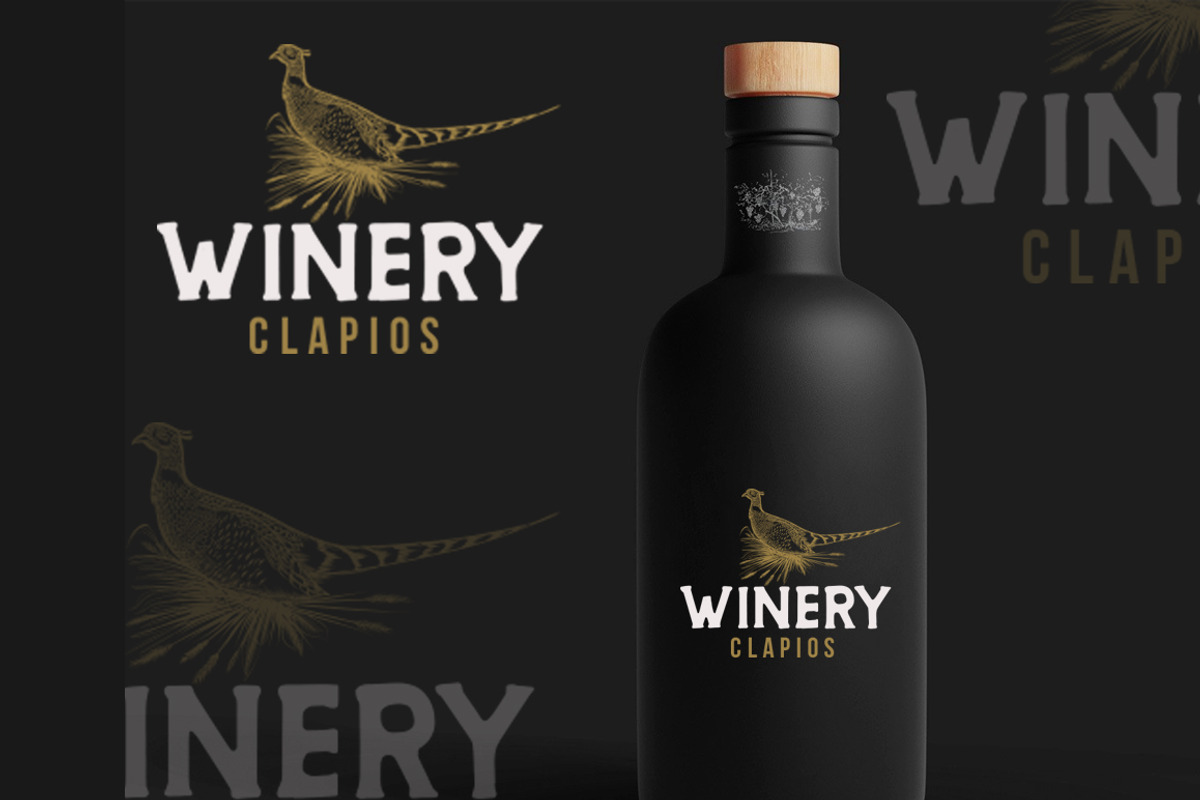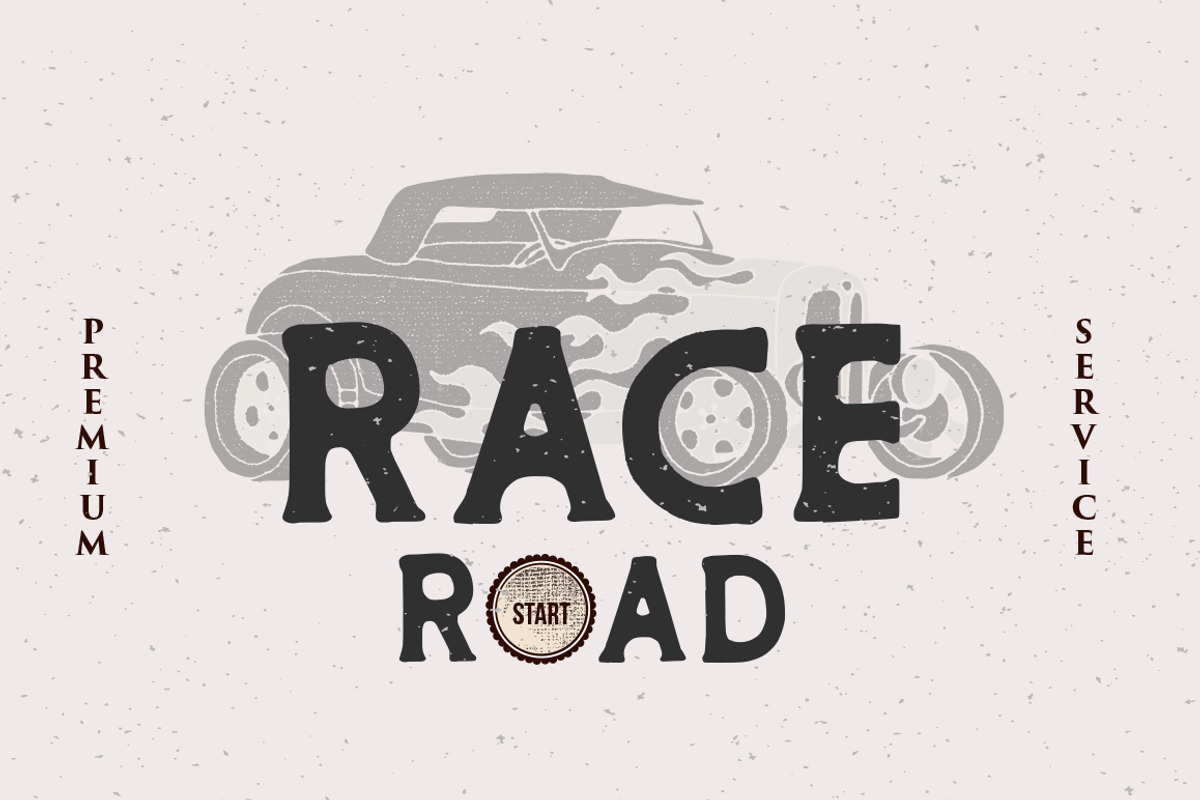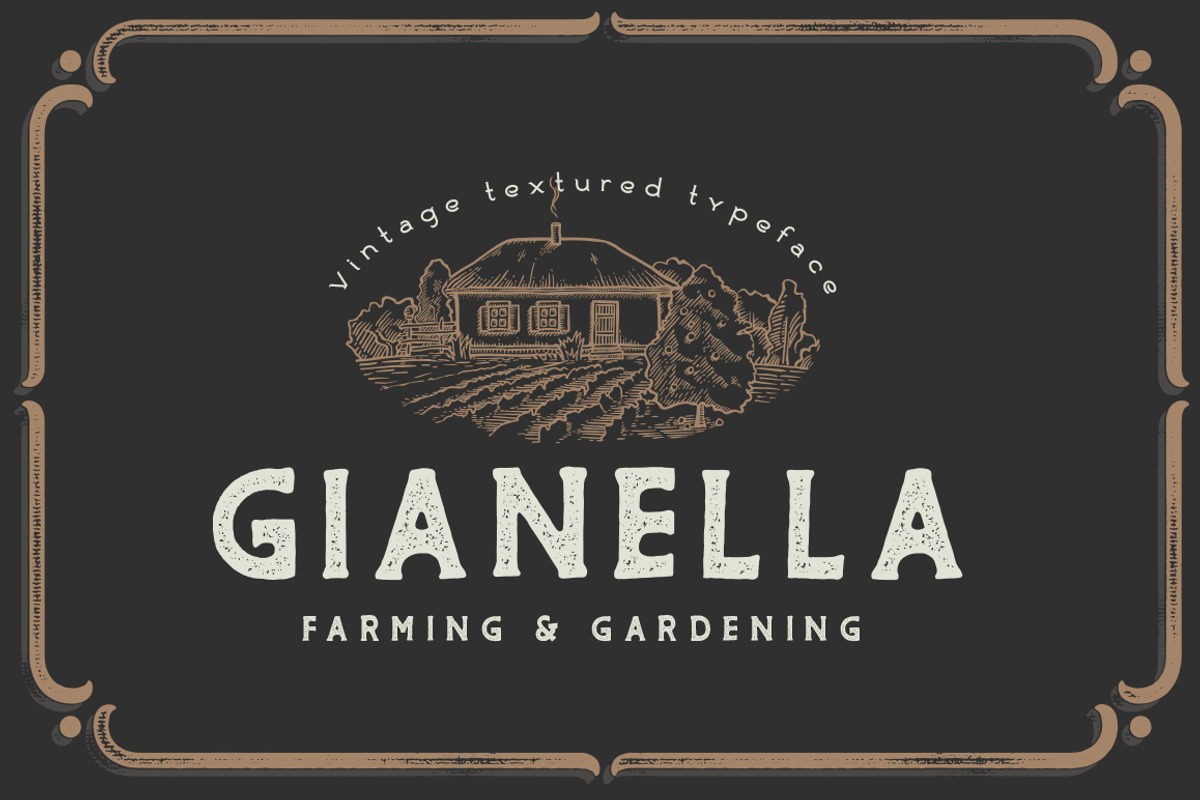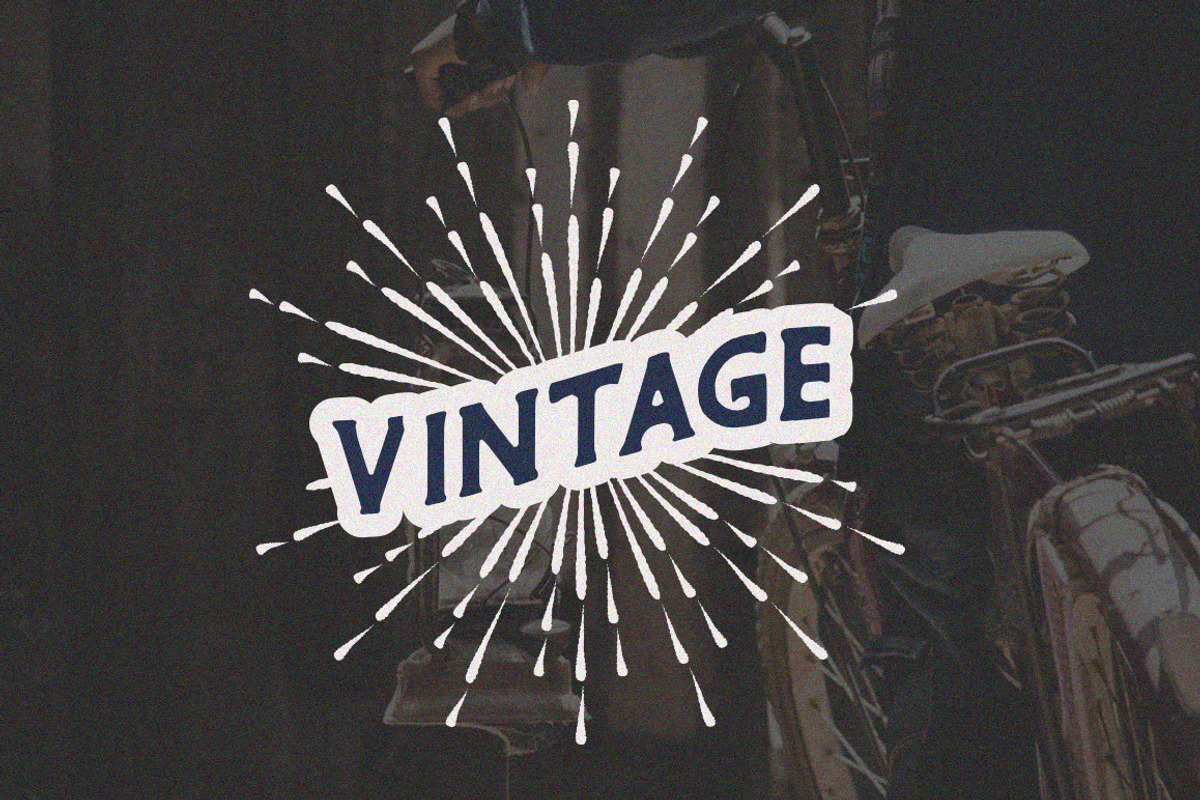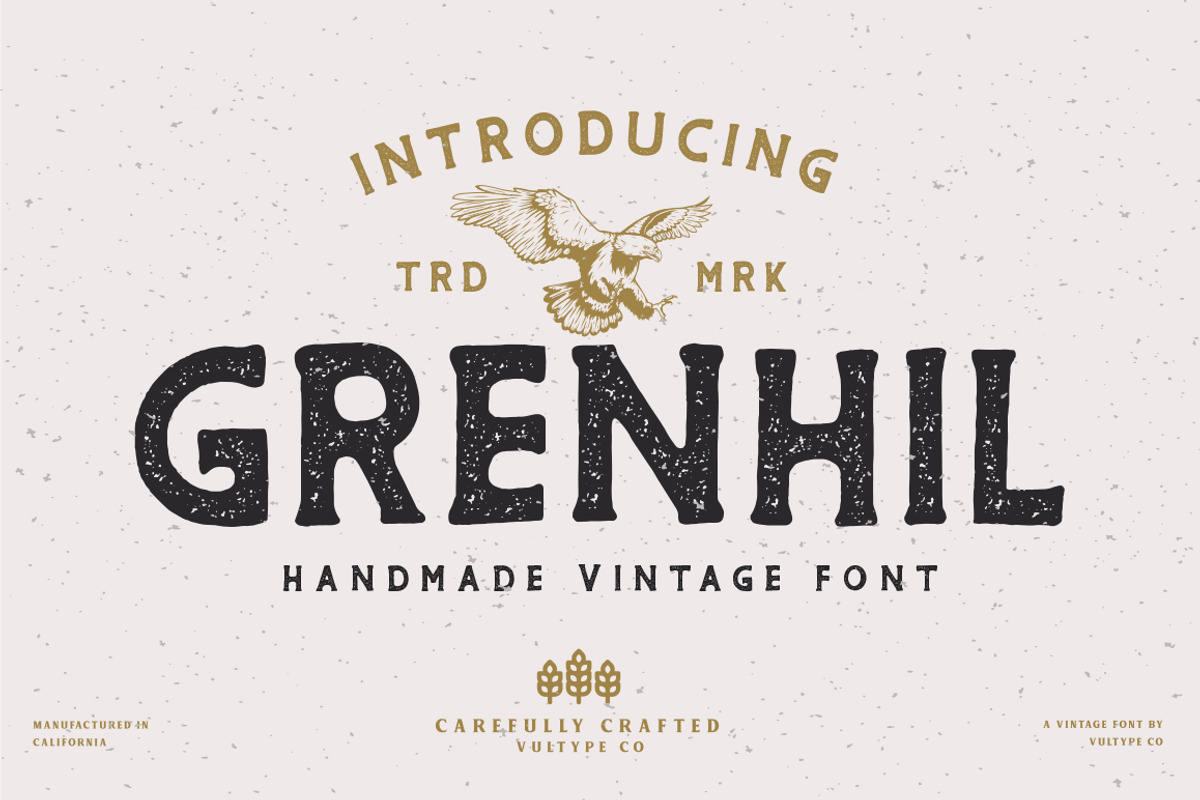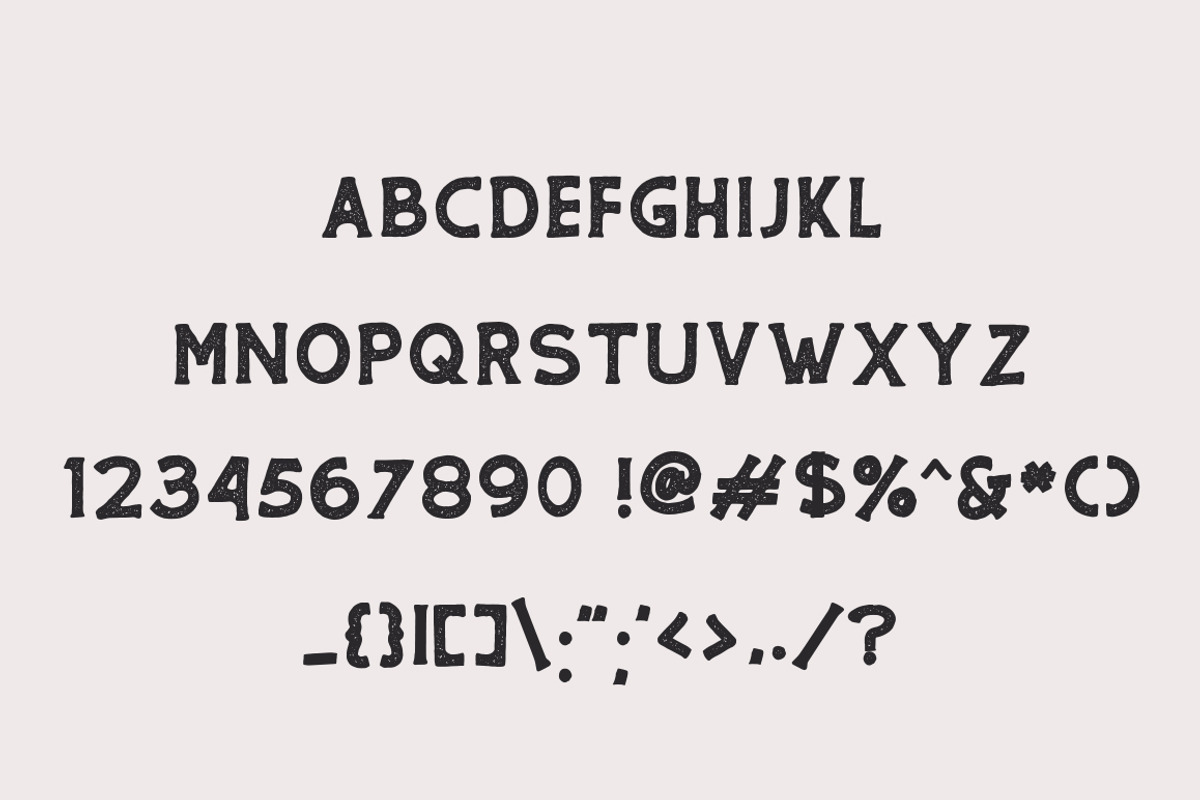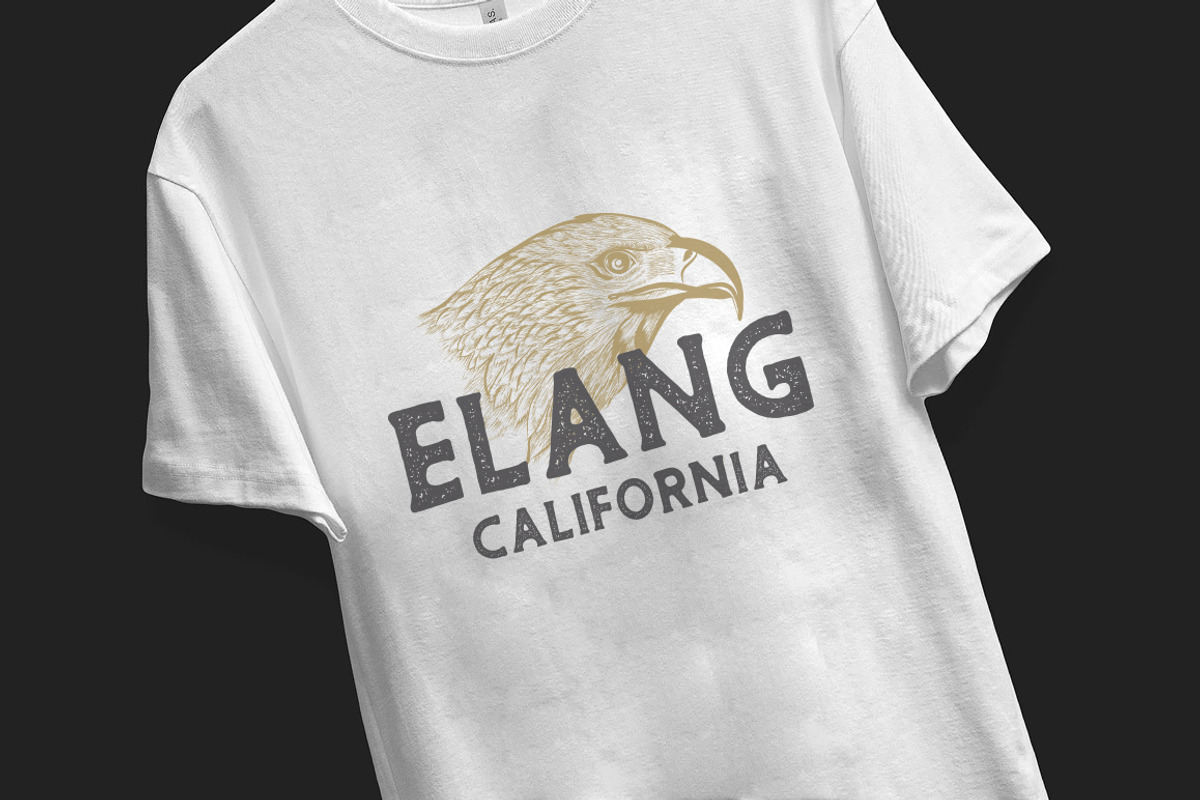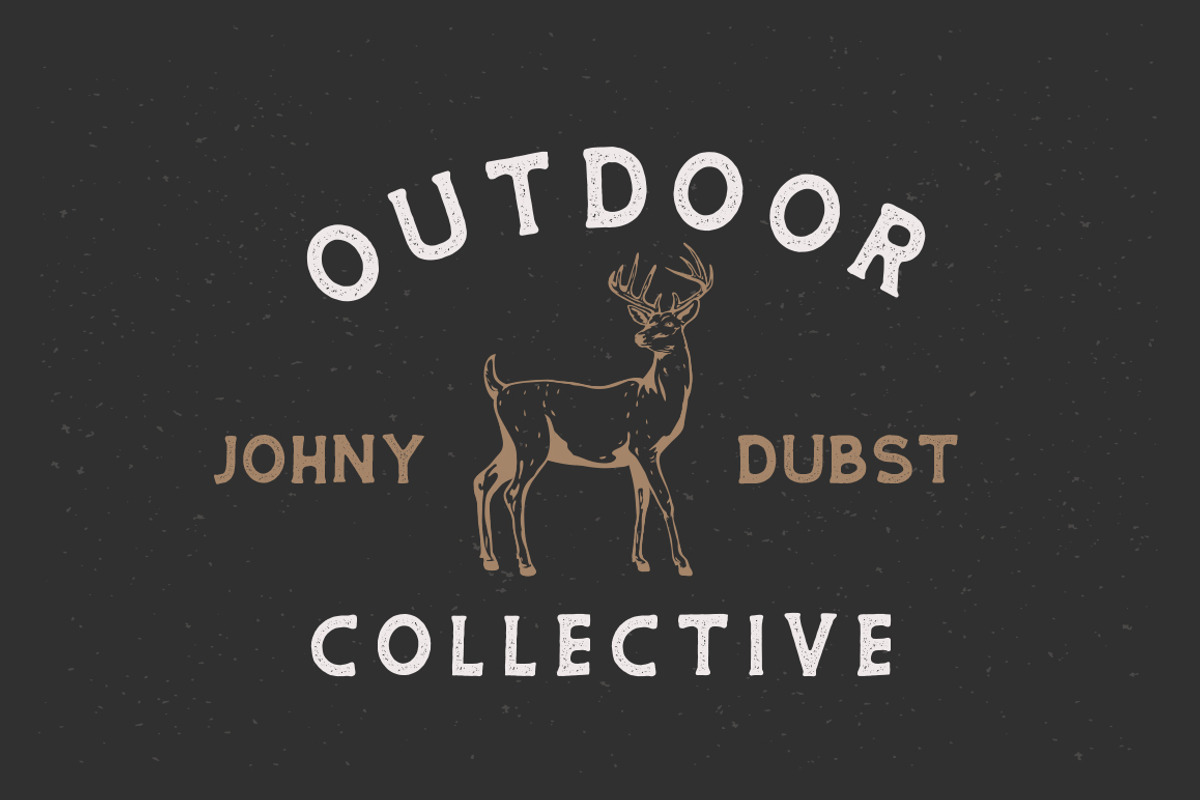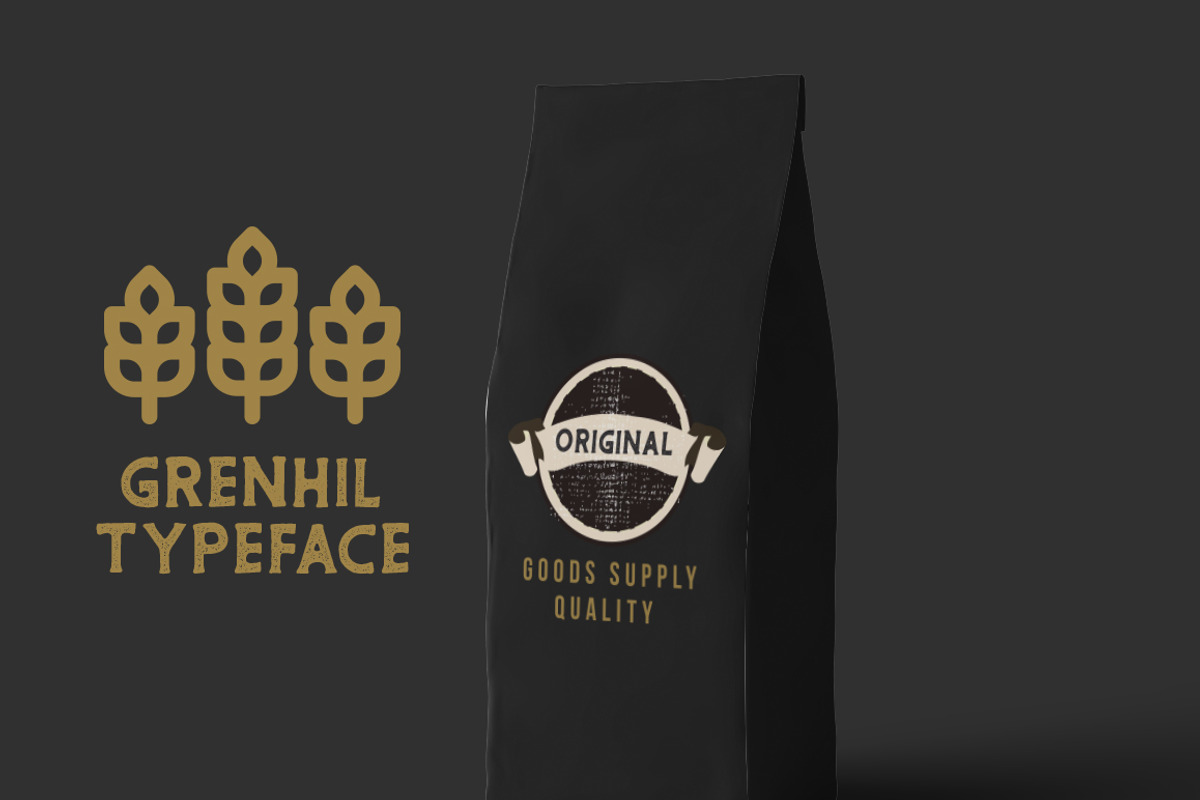
Grenhil - Handmade Vintage Font
Introducing Grenhil - Handmade Vintage Font
The Grenhil is vintage retro sans serif font with 2 font styles including Regular and rough style
Made carefully to create the perfect texture and suitable for each of your projects also great for Logotype, Branding Design, Logo Design, Digital Lettering Arts, T-Shirt/Apparel, Poster, Magazine, Signs, Advertising Design, and any vintage design needs.
- Upper + Lowercase Letters